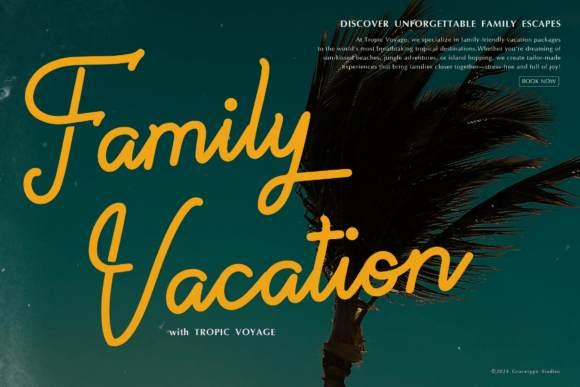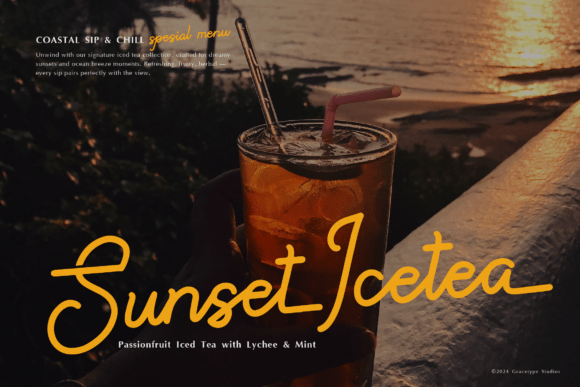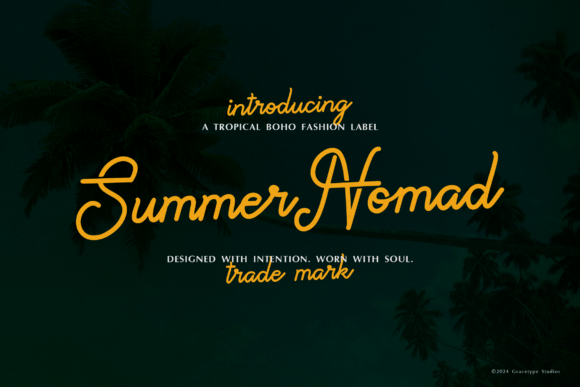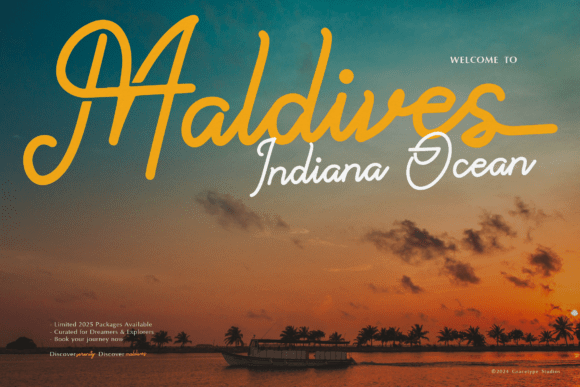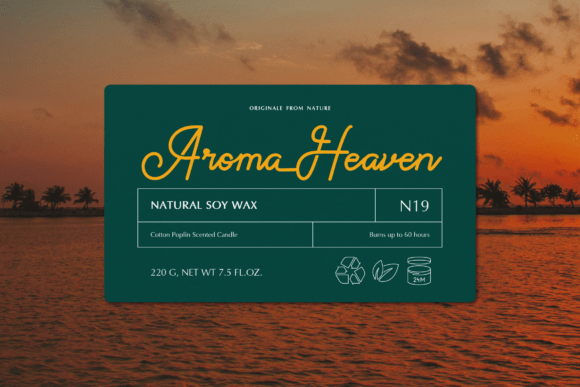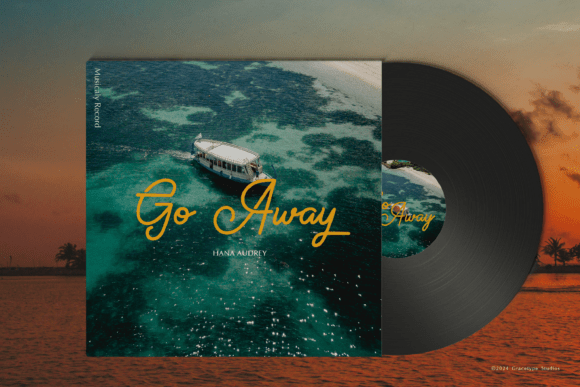
Introduction to Paradise Gallaiso Font
Paradise Gallaiso is a breezy monoline script font that captures the warmth of summer days and handwritten elegance.
With its smooth, flowing lines and nostalgic charm, this font is perfect for beach-themed designs, travel branding, boho logos, and creative content Comes with ligatures and alternates to enhance your layout with ease and personality.
Key Features of Paradise Gallaiso Font
Why Choose Paradise Gallaiso Font?
Paradise Gallaiso Font offers exceptional quality and versatility, making it a valuable addition to your design toolkit. Whether you’re creating for personal projects or commercial use, Paradise Gallaiso Font delivers professional results.